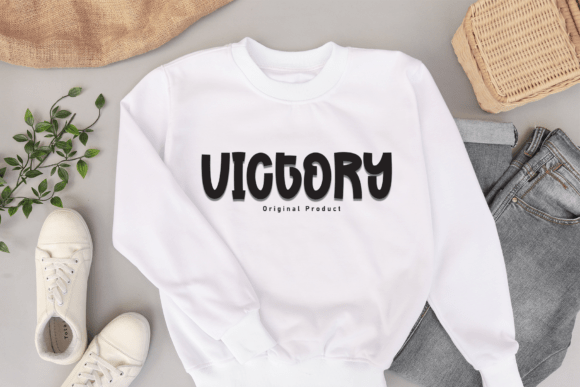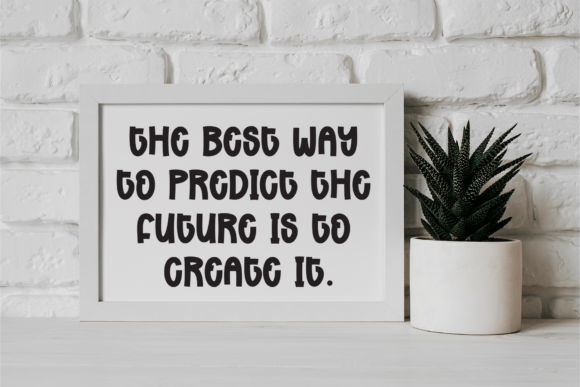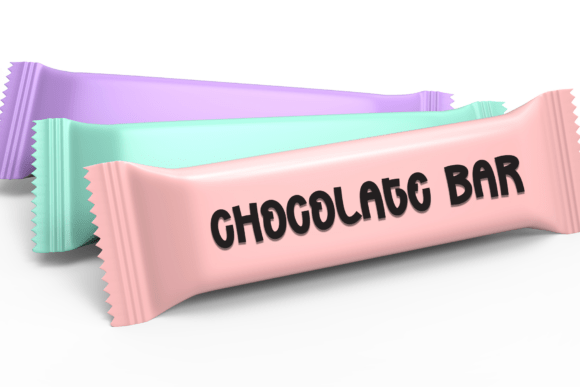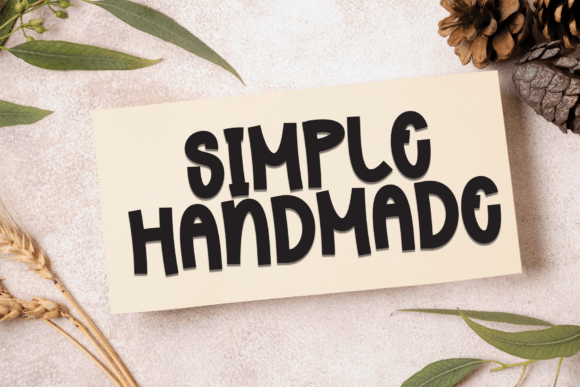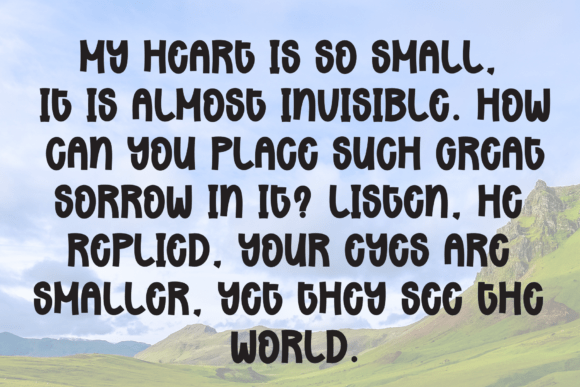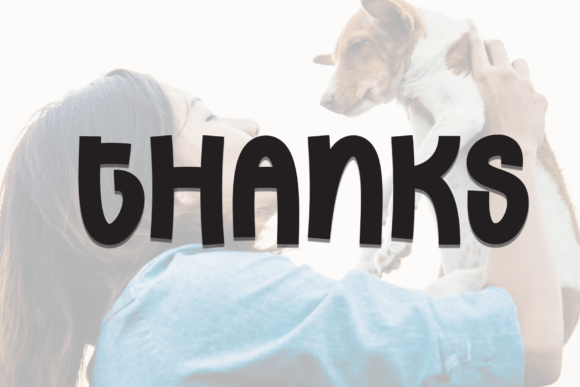
Introducing the Dog Lover Font: A Delightfully Sweet and Charming Addition to Your Design Arsenal
Are you a designer or crafter looking for a font that can add a touch of whimsy and friendliness to your designs? Look no further than the Dog Lover Font! This handwriting-inspired display font is the perfect choice for anyone who wants to infuse their work with a dash of joy and playfulness. With its fun and endearing letterforms, the Dog Lover Font is sure to become a staple in your creative arsenal.
The Perfect Font for Wedding Invitations and Cards
One of the standout features of the Dog Lover Font is its suitability for crafting beautiful wedding invitations and adorable cards. The font’s sweet and charming letterforms evoke a sense of romance and playfulness, making it perfect for couples who want to add a personal touch to their wedding stationery. Whether you’re a designer looking to offer your clients a unique and eye-catching font option or a crafter looking to create your own wedding invitations, the Dog Lover Font is an excellent choice.
A Font that Adds a Sprinkle of Joy to Any Design
The Dog Lover Font is more than just a font – it’s a way to add a sprinkle of joy to any design. Its fun and endearing letterforms are sure to put a smile on anyone’s face, making it perfect for designs that require a touch of whimsy and playfulness. Whether you’re designing a children’s book, a greeting card, or a social media graphic, the Dog Lover Font is sure to bring a sense of delight and charm to your work.
Key Features of the Dog Lover Font
- Handwriting-inspired letterforms: The Dog Lover Font features handwriting-inspired letterforms that are sweet, charming, and playful.
- Display font: The font is designed as a display font, making it perfect for use in titles, headings, and other prominent design elements.
- Fun and endearing: The font’s letterforms are fun and endearing, making it perfect for designs that require a touch of whimsy and playfulness.
- Perfect for wedding invitations and cards: The font’s sweet and charming letterforms make it perfect for crafting beautiful wedding invitations and adorable cards.
Tips for Using the Dog Lover Font
- Use it as a title font: The Dog Lover Font is perfect for use as a title font, adding a touch of whimsy and playfulness to your design.
- Pair it with a simple font: Pair the Dog Lover Font with a simple font to create a striking contrast and add visual interest to your design.
- Experiment with colors: The Dog Lover Font looks great in a variety of colors, so don’t be afraid to experiment and find the perfect hue for your design.
In conclusion, the Dog Lover Font is a delightfully sweet and charming addition to any design arsenal. With its fun and endearing letterforms, it’s the perfect choice for crafting beautiful wedding invitations, adorable cards, and other designs that require a touch of whimsy and playfulness. Whether you’re a designer or crafter, the Dog Lover Font is sure to become a staple in your creative toolkit.